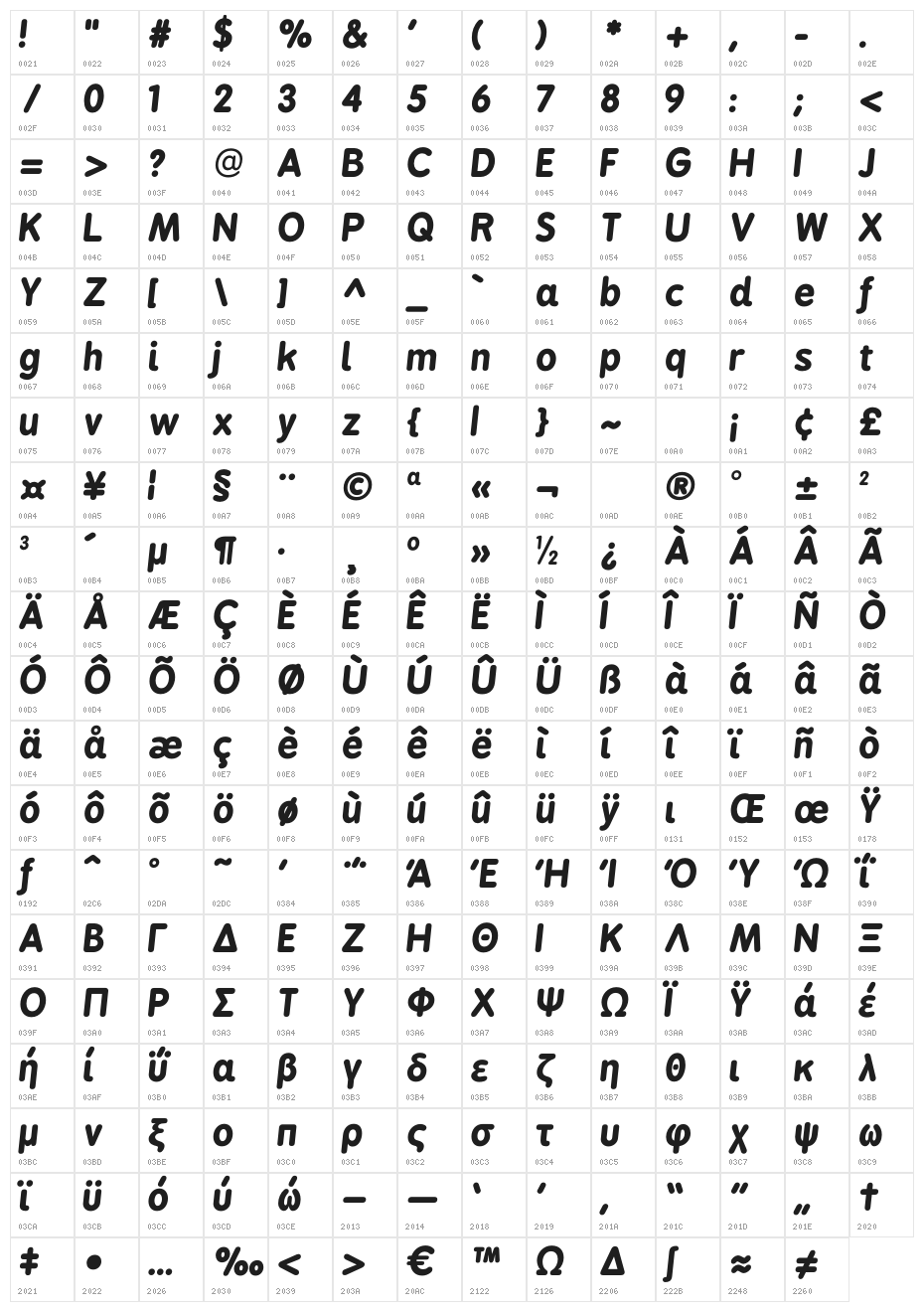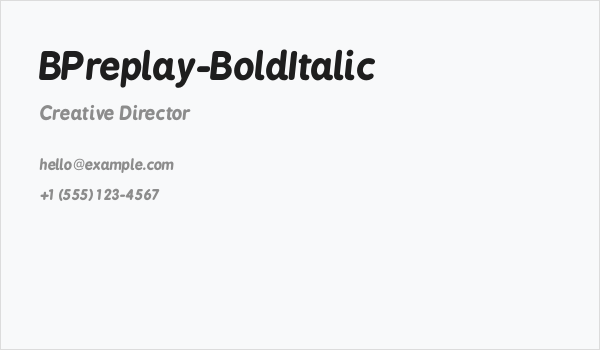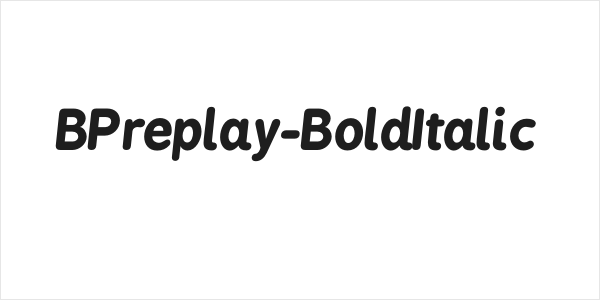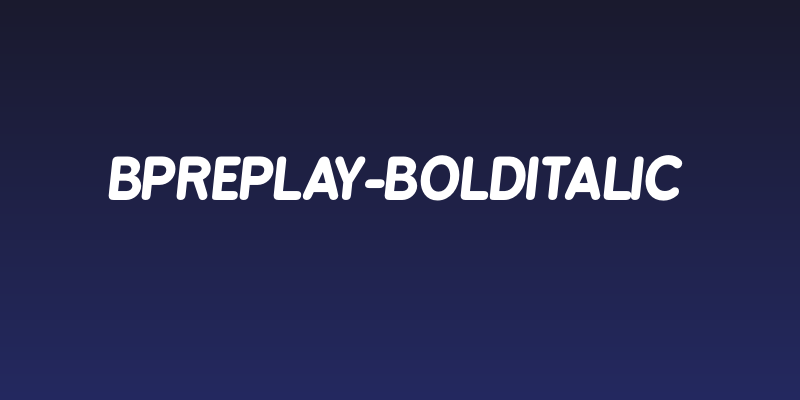
BPreplay-BoldItalic Font
BPreplay-BoldItalic Description
This font features a bold and italic style with smooth, rounded edges that give it a friendly and approachable appearance. The characters are well-proportioned, with a consistent stroke width that maintains readability across various sizes. Its playful yet professional look makes it suitable for a wide range of applications. The uppercase and lowercase letters are distinct, with a slight slant that adds a dynamic feel. The numerals and special characters are equally bold, ensuring they stand out in any design. Overall, this font combines modern aesthetics with a touch of whimsy, making it versatile for both digital and print media.
| Proposed Projects | Ideal for branding, advertising, headlines, and packaging design. |